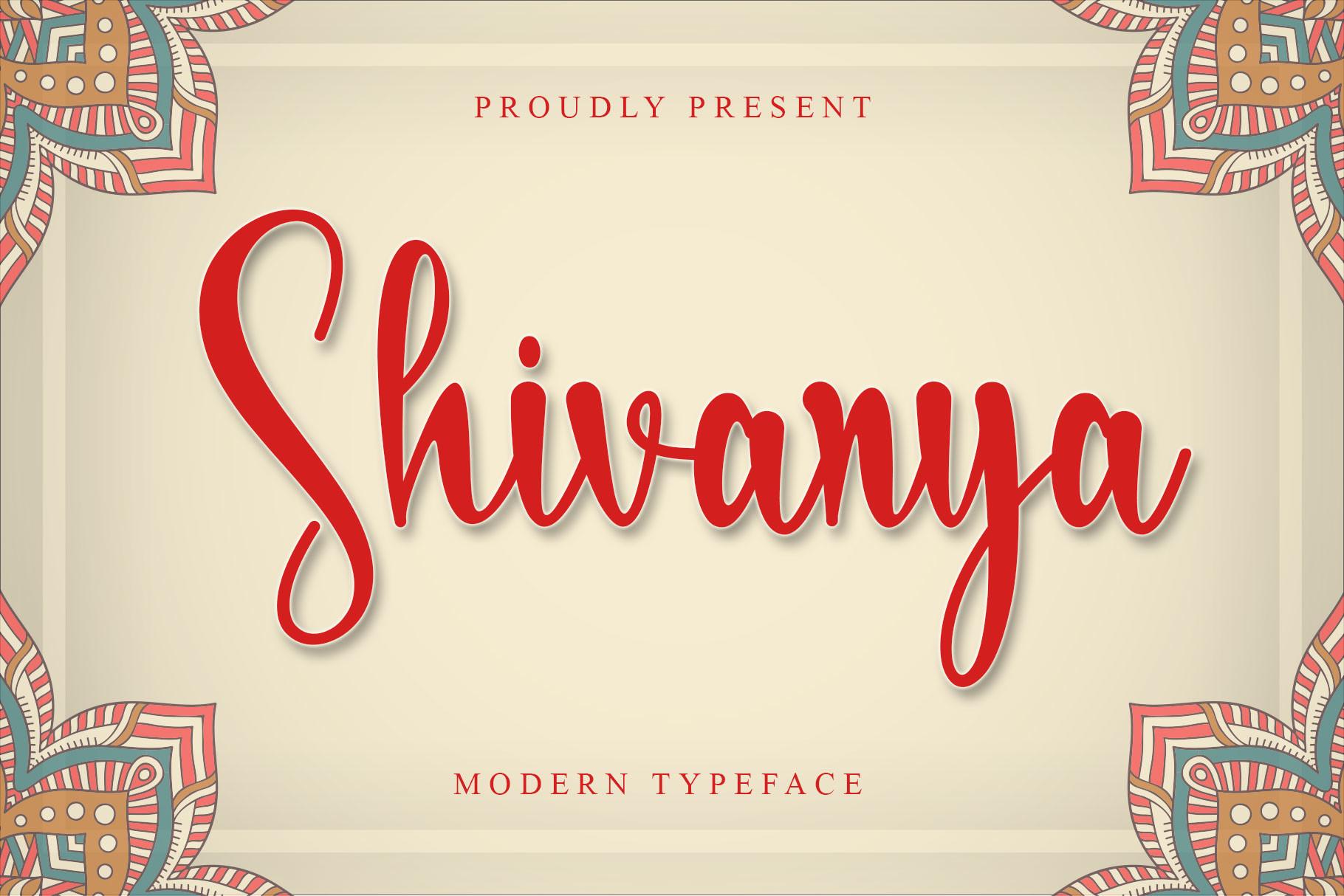
Shivanya Font Description
Shivanya is a lovely and delicate script font that exudes elegance and class. This font was particularly crafted for those who need a beautiful and refreshing look to their designs. Shivanya is PUA encoded which means you can access all of the amazing glyphs and ligatures with ease!